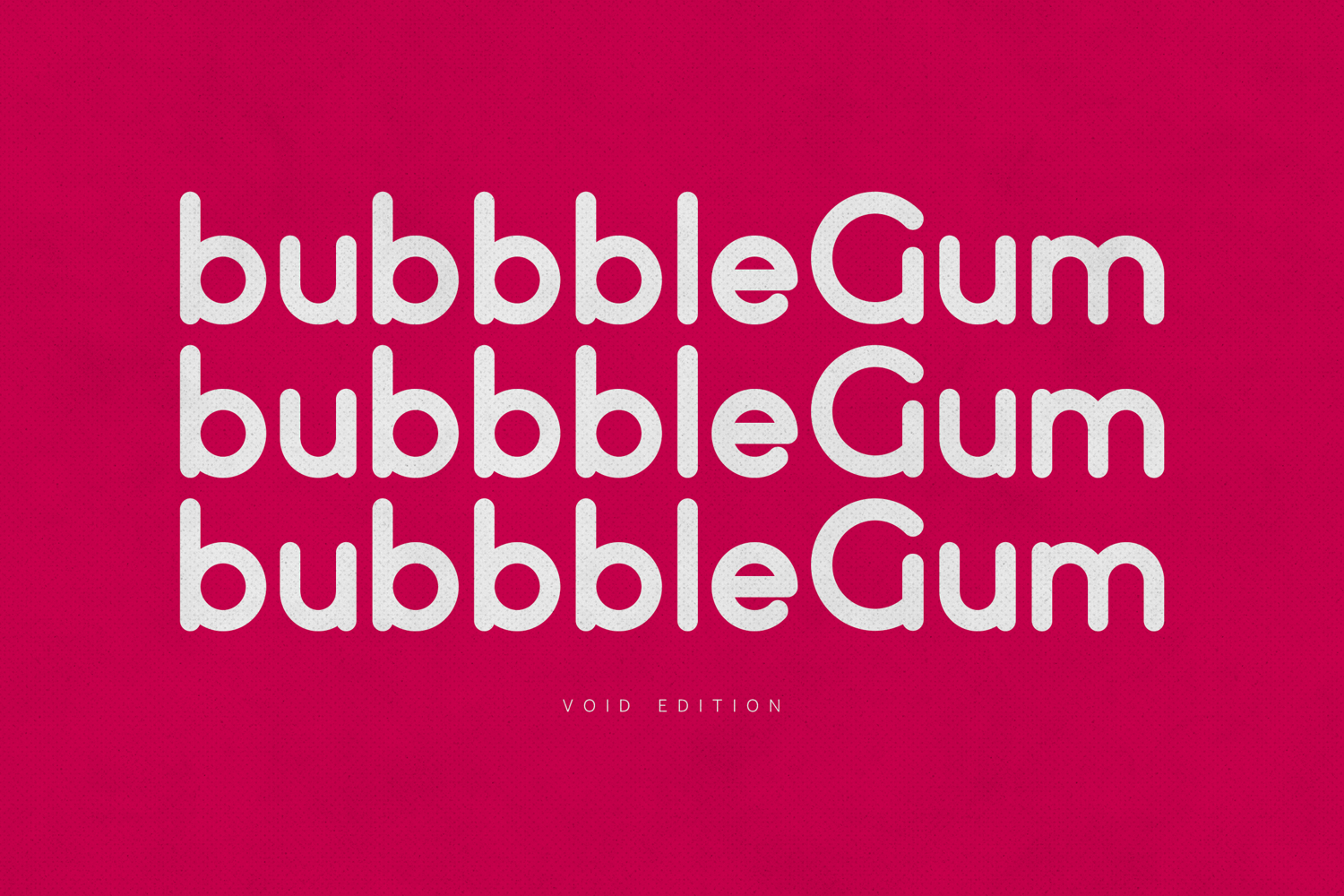
Bubble Gum Playful Rounded Display Font
Bubble Gum is a playful rounded display typeface designed to bring a fun and friendly personality to modern design projects. With its soft curves, smooth shapes, and cheerful appearance, the font creates an inviting and approachable typographic style.
The letterforms are built with rounded terminals and balanced proportions, making the typeface perfect for projects that require a light, joyful, and modern visual tone. Its bold readability allows it to perform beautifully in headlines, logos, packaging, and social media graphics.
Bubble Gum is especially well suited for branding aimed at youth, lifestyle products, creative packaging, playful advertising, and digital content. The clean geometry and friendly shapes help designs feel energetic while still maintaining a modern and professional look.
Whether used for branding, packaging, posters, social media, merchandise, or logo design, Bubble Gum adds a playful and contemporary typographic voice.